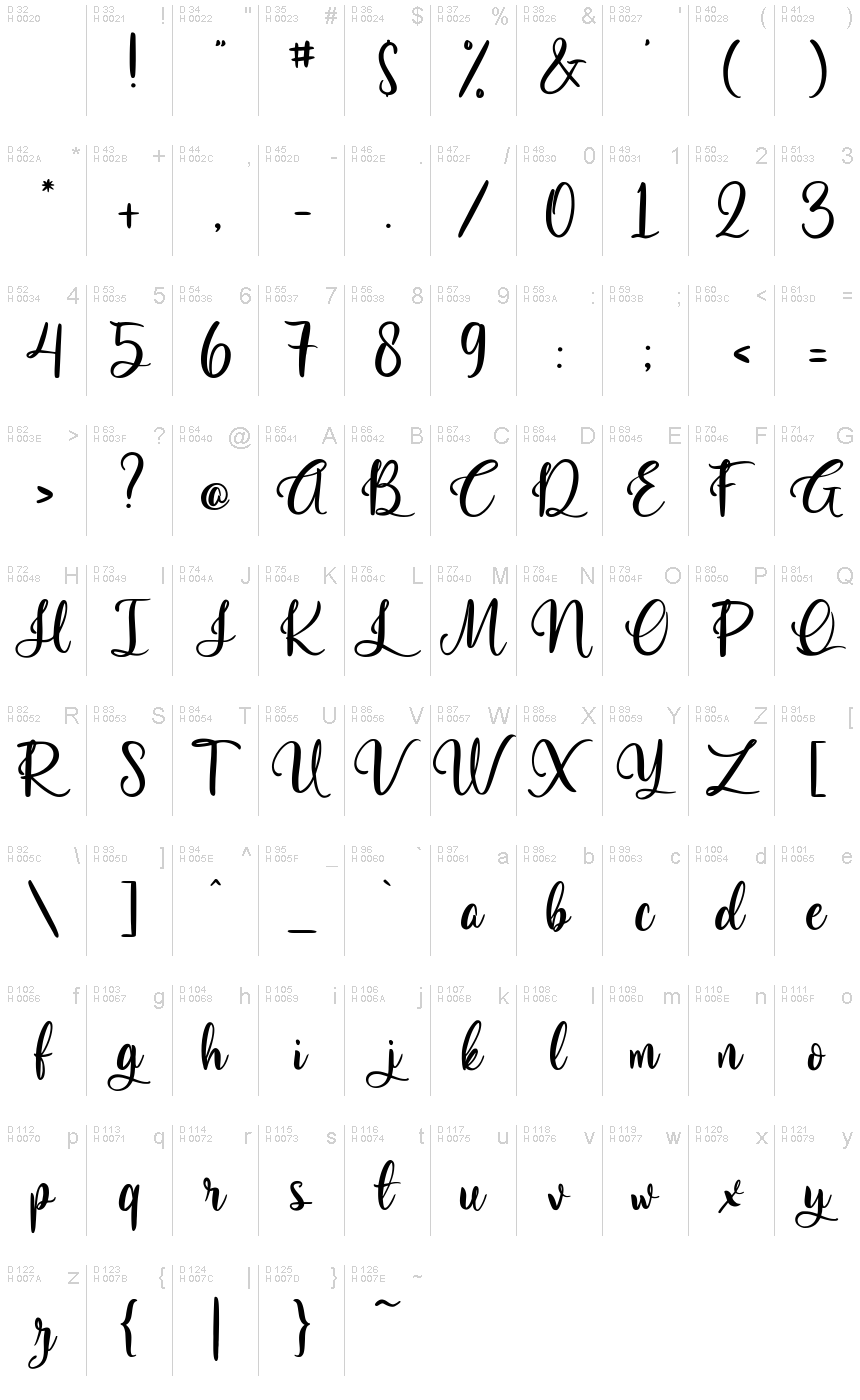
Dancing in Heaven
Dancing in Heaven, a creation by Cat.B, is a calligraphy font that exudes elegance and fluidity. Its sweeping curves and delicate lines mimic the grace of an ink pen dancing across parchment. The font's artistry lies in its harmonious balance between whimsical loops and refined strokes, making each character appear as if it were carefully crafted by hand.
This font's charm lends itself well to a variety of design contexts. It is particularly suited for wedding invitations, elegant branding, or any project that requires a touch of sophistication and a personal feel. With Dancing in Heaven, designers can infuse their work with the timeless beauty of calligraphic artistry.